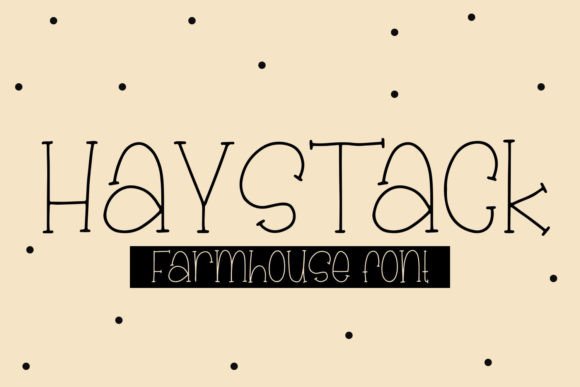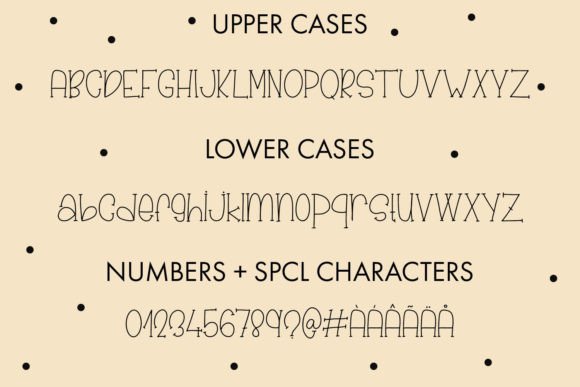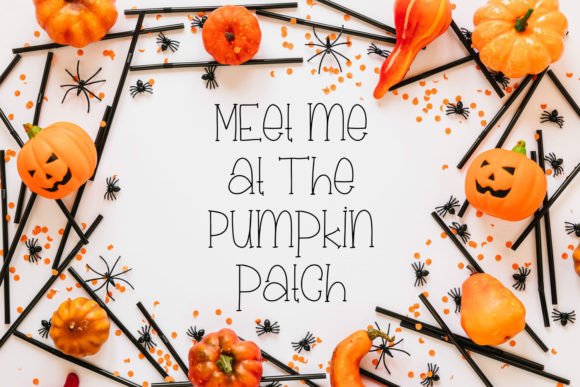
About Haystack Font
Introducing Haystack, a fun and quirky handwritten font that exudes a farmhouse Halloween vibe. This font is perfect for various projects where you want to embrace the quirky and whimsical aspects of the design. Haystack is an ideal choice for all DIY projects during fall and Halloween, adding a playful and festive touch to your creations.
The charm of Haystack lies in its fun and handwritten style, which brings a lighthearted and whimsical feel to any design. The farmhouse Halloween vibe adds a unique touch that is well-suited for seasonal projects. Imagine Haystack on Halloween-themed DIY crafts, where it enhances the quirky and festive atmosphere.
The versatility of Haystack allows it to shine in different design contexts. Whether used for invitations, greeting cards, posters, or any other project, this font adapts seamlessly, contributing to the visual appeal of your designs. Its fun and quirky design make Haystack a font that brings a touch of playfulness to your creative endeavors.
Visualize Haystack becoming a key element in your design toolkit, transforming your projects into visually engaging and quirky pieces. Envision it on Halloween-themed decorations, where its farmhouse vibe adds character to your DIY creations. Haystack’s ability to capture the spirit of fall and Halloween makes it a valuable addition that brings a fun and festive touch to your designs.
In conclusion, Haystack is not just a font; it’s a fun and quirky design asset that celebrates the farmhouse Halloween vibe. Download it today and experience how it transforms your seasonal DIY projects, posters, and more into expressions of playful creativity. Make Haystack a cherished addition to your font collection, and let it be the key to unlocking a world of whimsy and festivity in your designs!